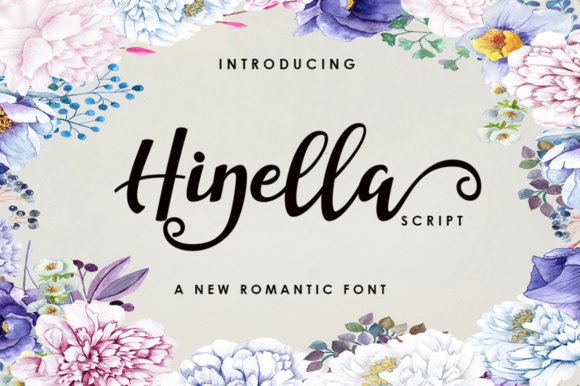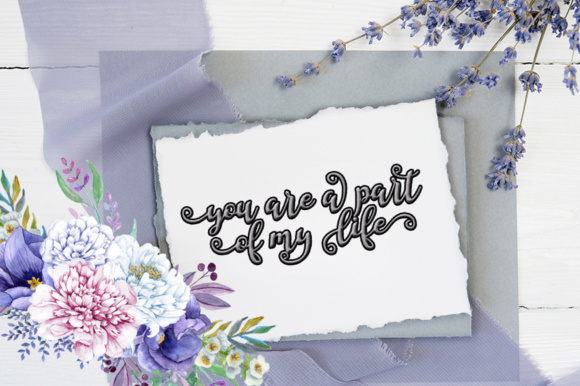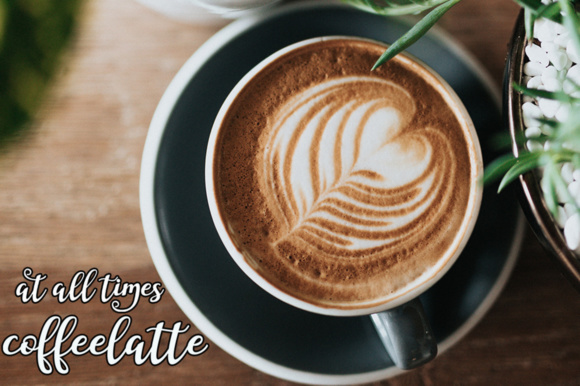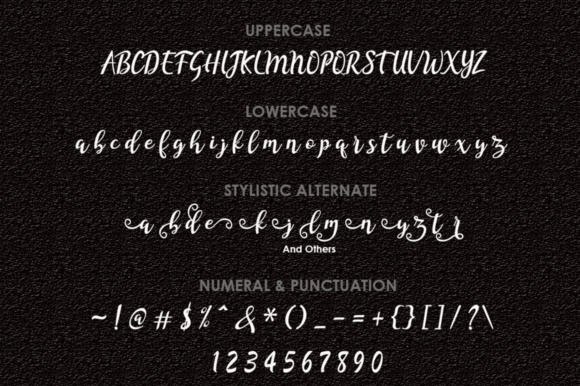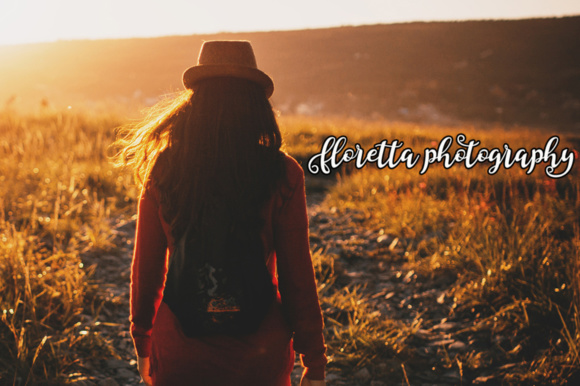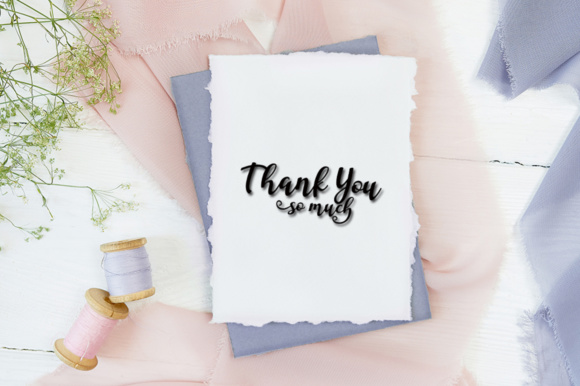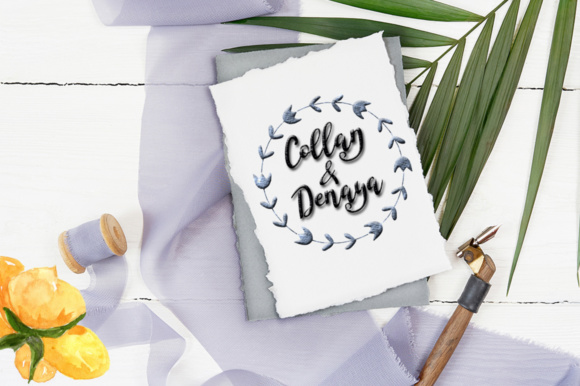
Hinella Script Font
About Hinella Script Font
Hinella Script is a beautifully legible script font, ideal for use in a wide range of projects. This font is a great way to add a vintage yet clean style to your works.